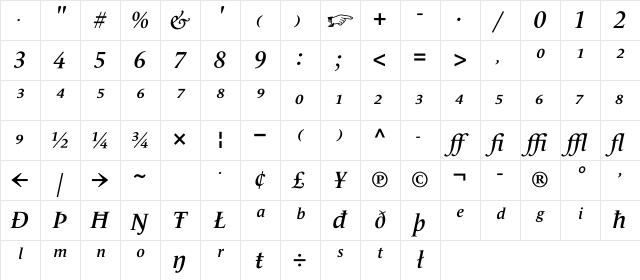
LeMonde Livre Expert SemiBold
Style: SemiBold
Complete LeMonde Livre Expert SemiBold glyph index. Displaying only characters natively supported by LeMonde Livre Expert SemiBold font.
Design Context for LeMonde Livre Expert
LeMonde Livre Expert is a composed and adaptable typeface that performs quietly and consistently across a wide range of design contexts. Its bold stroke weight gives it real presence on the page.